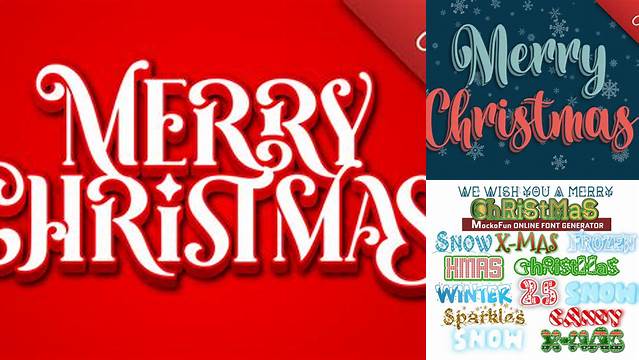
Festive Text: Christmas Fonts Generator For Holiday Cheer
Christmas is a time for joy, celebration, and spreading holiday cheer! What better way to add a festive touch to your designs, messages, and crafts than with Christmas fonts? A Christmas fonts generator can be your best friend this holiday season, allowing you to quickly and easily create eye-catching text that embodies the spirit of Christmas. Whether you're designing Christmas cards, social media posts, or even personalizing gifts, the right font can make all the difference. This comprehensive guide will explore the wonderful world of Christmas fonts, how to use a Christmas fonts generator effectively, and tips for selecting the perfect font for your holiday projects. So, grab your hot cocoa, put on some Christmas tunes, and let's dive into the festive world of fonts!
H2: What is a Christmas Fonts Generator?
Let's kick things off by understanding exactly what a Christmas fonts generator is. Guys, it's essentially a tool that allows you to type in text and then transform it into various Christmas-themed font styles. Think of it as your personal font elf, ready to sprinkle some holiday magic on your words! These generators often offer a wide array of festive fonts, ranging from elegant script styles that evoke the classic Christmas card feel, to playful and whimsical fonts perfect for children's projects. Some generators even allow you to customize the text with colors, shadows, and other effects to further enhance the Christmas spirit. The beauty of using a Christmas fonts generator lies in its simplicity and efficiency. You don't need to be a graphic design expert to create stunning holiday text. Just type, select, and download – it's that easy!
H3: How Does a Christmas Fonts Generator Work?
Now, let's delve a little deeper into the mechanics of how a Christmas fonts generator actually works. Most generators operate on a pretty straightforward principle. You'll find a text input box where you type the message you want to transform. Below or beside that, there's usually a selection of Christmas-themed fonts to choose from. These fonts are pre-designed and loaded into the generator's system. When you select a font, the generator essentially applies that font style to the text you've entered. Some generators offer real-time previews, allowing you to see how your text looks in each font before you make a final decision. Once you're happy with your choice, you can typically download the generated text as an image file (like a PNG or JPG) or sometimes even as a vector file (like an SVG), depending on the generator's capabilities. The vector format is particularly useful if you plan on resizing the text without losing quality. So, in a nutshell, a Christmas fonts generator is a user-friendly tool that bridges the gap between your creative ideas and visually appealing festive text.
H3: Benefits of Using a Christmas Fonts Generator
Alright, let's talk about why you should totally consider using a Christmas fonts generator for your holiday projects. The benefits are numerous, guys! First off, it's a huge time-saver. Instead of spending hours searching for the perfect font and then struggling to implement it in your design software, you can generate festive text in a matter of seconds. This is especially helpful if you're working on a tight deadline or have a lot of projects to complete. Secondly, a Christmas fonts generator offers a wide variety of font styles. You can explore different looks and feels without having to download and install individual fonts, which can be a cumbersome process. This allows you to experiment and find the perfect font that truly captures the essence of your message. Thirdly, many generators are free to use, making them an incredibly cost-effective solution for adding a touch of Christmas flair to your designs. And lastly, they are incredibly user-friendly. You don't need any special skills or software to use a Christmas fonts generator. It's a simple, intuitive tool that anyone can master, making it a fantastic option for both beginners and experienced designers alike. So, if you're looking for a quick, easy, and affordable way to create festive text, a Christmas fonts generator is definitely the way to go!
H2: Exploring Different Styles of Christmas Fonts
Now, let's dive into the exciting world of Christmas font styles! There's a vast array of options out there, each with its unique charm and character. Understanding the different styles will help you make informed choices when using a Christmas fonts generator and ensure your text perfectly complements your holiday projects. Let's explore some popular categories:
H3: Elegant Script Fonts for Christmas
If you're aiming for a touch of sophistication and classic Christmas elegance, script fonts are your best bet. These fonts often mimic the graceful strokes of handwriting, creating a sense of warmth and personalization. Think of the beautiful calligraphy you might see on traditional Christmas cards. Elegant script fonts are perfect for invitations, formal greetings, and projects where you want to convey a sense of refinement. When using a Christmas fonts generator, look for options with flowing lines, delicate flourishes, and a touch of formality. Some popular examples include fonts inspired by Spencerian or Copperplate calligraphy styles. However, it's important to ensure readability. Choose a script font that is clear and easy to read, especially for longer messages. A slightly heavier weight or a font with less intricate details might be preferable for better legibility. So, if you want to add a dash of timeless elegance to your Christmas designs, explore the world of script fonts. They're a sure way to create a lasting impression of sophistication and holiday cheer.
H3: Fun and Whimsical Christmas Fonts
For a more playful and lighthearted approach to your Christmas projects, whimsical fonts are the perfect choice! These fonts often feature quirky shapes, irregular lines, and a general sense of fun. They're ideal for children's projects, informal greetings, and anything that needs a touch of Christmas cheer without being too formal. Imagine the font on a children's book or a poster for a Christmas party – that's the kind of vibe whimsical fonts can bring. When using a Christmas fonts generator, look for fonts with rounded edges, playful serifs, or even fonts that incorporate Christmas-themed elements like snowflakes or candy canes. These fonts can be a real joy to work with, but it's important to strike a balance. While fun is the goal, readability should still be a priority. Avoid fonts that are too cluttered or difficult to decipher. A well-chosen whimsical font can add a delightful touch of personality to your Christmas designs, making them stand out with their unique charm and playful spirit.
H3: Bold and Festive Display Fonts
When you need your Christmas message to make a statement, bold and festive display fonts are the way to go! These fonts are designed to grab attention and command the spotlight. Think of the big, eye-catching lettering you might see on a store window during the holiday season or on a banner at a Christmas event. Bold display fonts are perfect for headlines, titles, and any text that needs to stand out from the crowd. When using a Christmas fonts generator, look for fonts with thick strokes, strong serifs, or unique character designs that exude the Christmas spirit. Fonts with a vintage or retro feel can also be great options for adding a touch of nostalgia to your projects. However, remember that readability is key, even with display fonts. While these fonts are meant to be bold, they should still be easy to read at a glance. Use them sparingly and strategically to maximize their impact. A well-chosen bold display font can instantly elevate your Christmas designs, ensuring your message is heard loud and clear.
H3: Vintage and Retro Christmas Fonts
For a touch of nostalgia and classic charm, vintage and retro Christmas fonts are an excellent choice. These fonts evoke the spirit of Christmases past, bringing a sense of warmth and tradition to your designs. Think of the fonts used on vintage Christmas cards, posters, and advertisements – they have a distinct character and charm that's hard to resist. Vintage fonts often feature unique serifs, slightly distressed textures, and a classic aesthetic. Retro fonts, on the other hand, may draw inspiration from mid-century design styles, with bold shapes and a playful feel. When using a Christmas fonts generator, look for fonts that capture the essence of these eras. Fonts with a slightly aged or weathered appearance can add to the authenticity of the vintage look. These fonts are perfect for projects where you want to create a sense of nostalgia or evoke the timeless spirit of Christmas. They work well for invitations, greeting cards, and even branding materials. A well-chosen vintage or retro font can transport your audience back in time, filling their hearts with the warmth and joy of Christmases long ago.
H2: Choosing the Right Christmas Font for Your Project
Okay, guys, so now you know all about the different styles of Christmas fonts. But how do you actually choose the right one for your specific project? It's a crucial step, as the font you select can significantly impact the overall look and feel of your design. Let's break down some key considerations to help you make the best choice when using a Christmas fonts generator:
H2: Conclusion: Spread Holiday Cheer with Christmas Fonts
So there you have it, guys! A comprehensive guide to the wonderful world of Christmas fonts and Christmas fonts generators. We've explored different font styles, discussed how to choose the right font for your project, shared tips for using generators effectively, and even looked at some creative examples. The bottom line is that fonts are a powerful tool for conveying the spirit of Christmas and adding a festive touch to your designs. Whether you're designing Christmas cards, creating social media graphics, personalizing gifts, or crafting decorations, the right font can make all the difference. So, this holiday season, embrace the joy of Christmas fonts and let your creativity shine! A Christmas fonts generator is your best friend for quickly and easily creating festive text that will spread holiday cheer far and wide. Happy creating, and Merry Christmas!